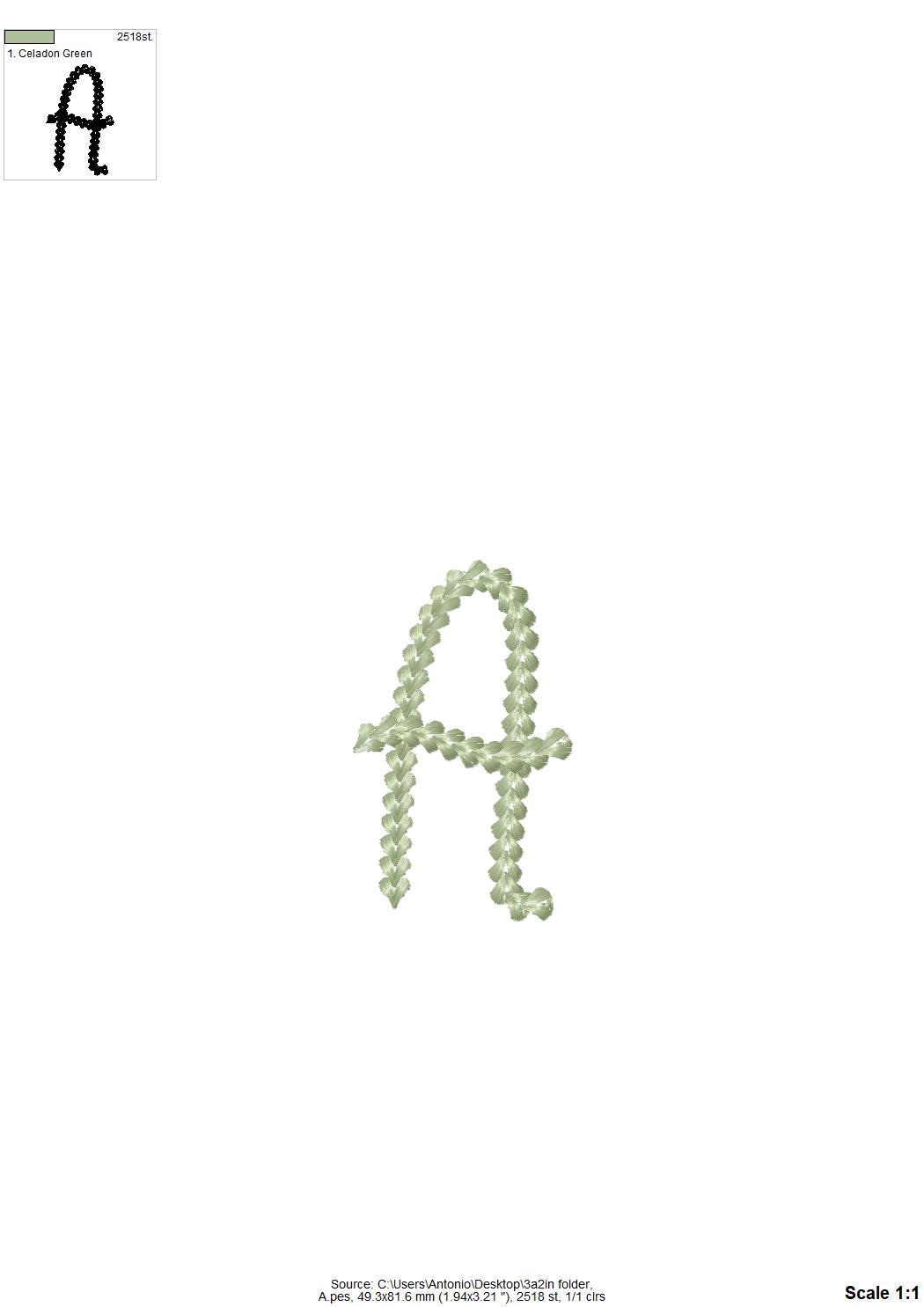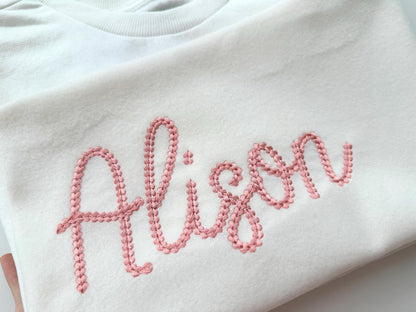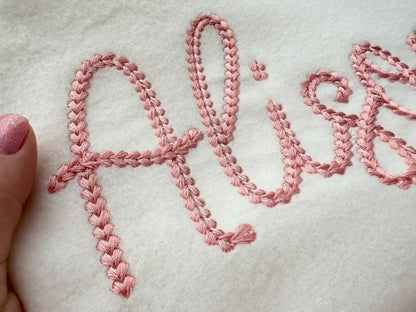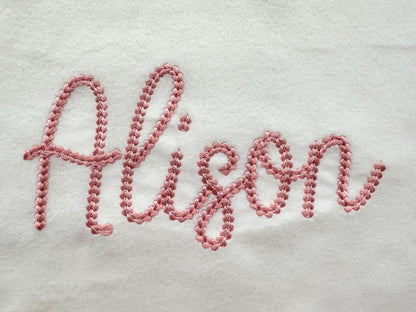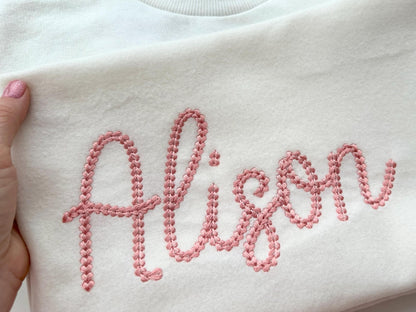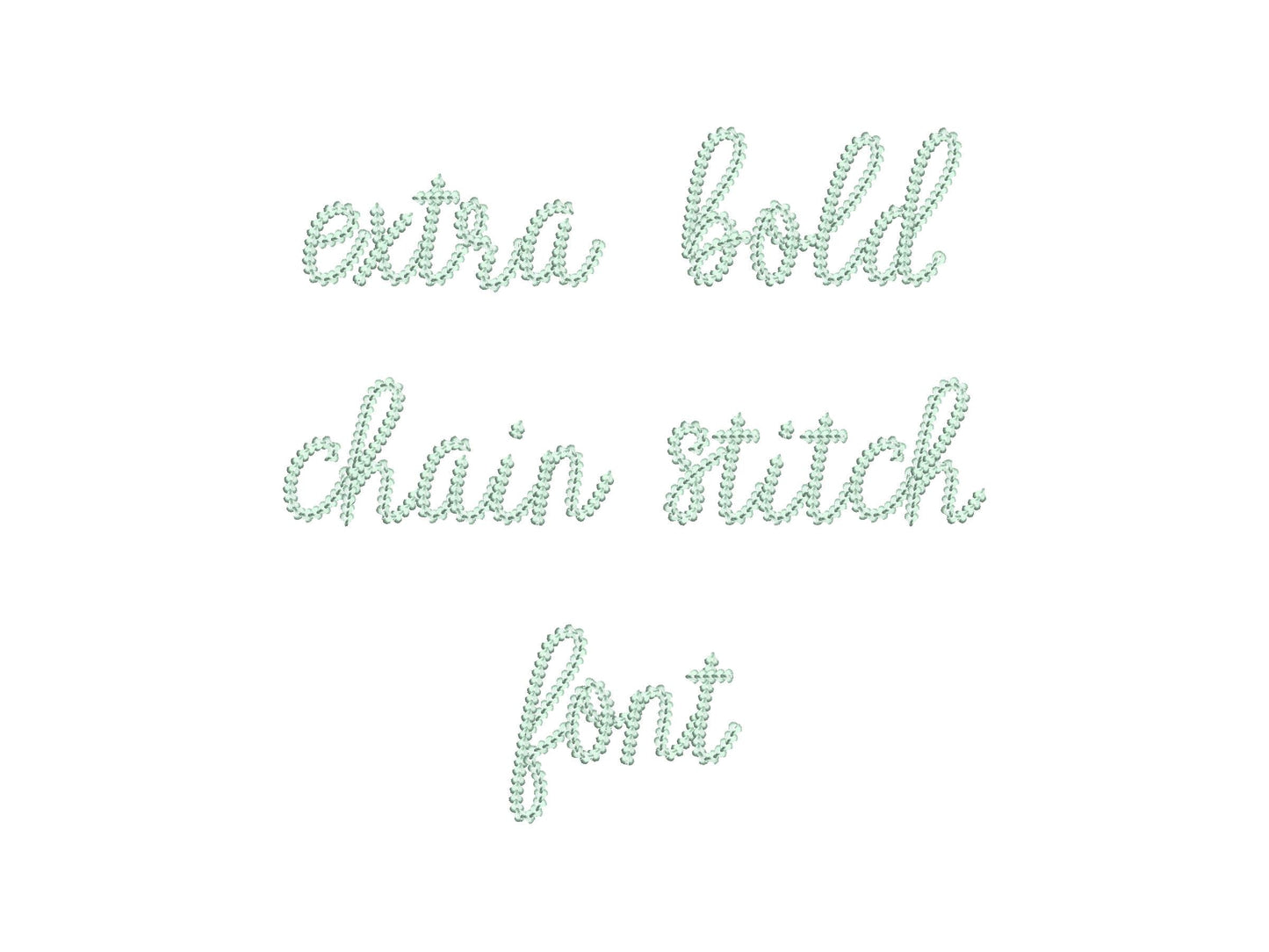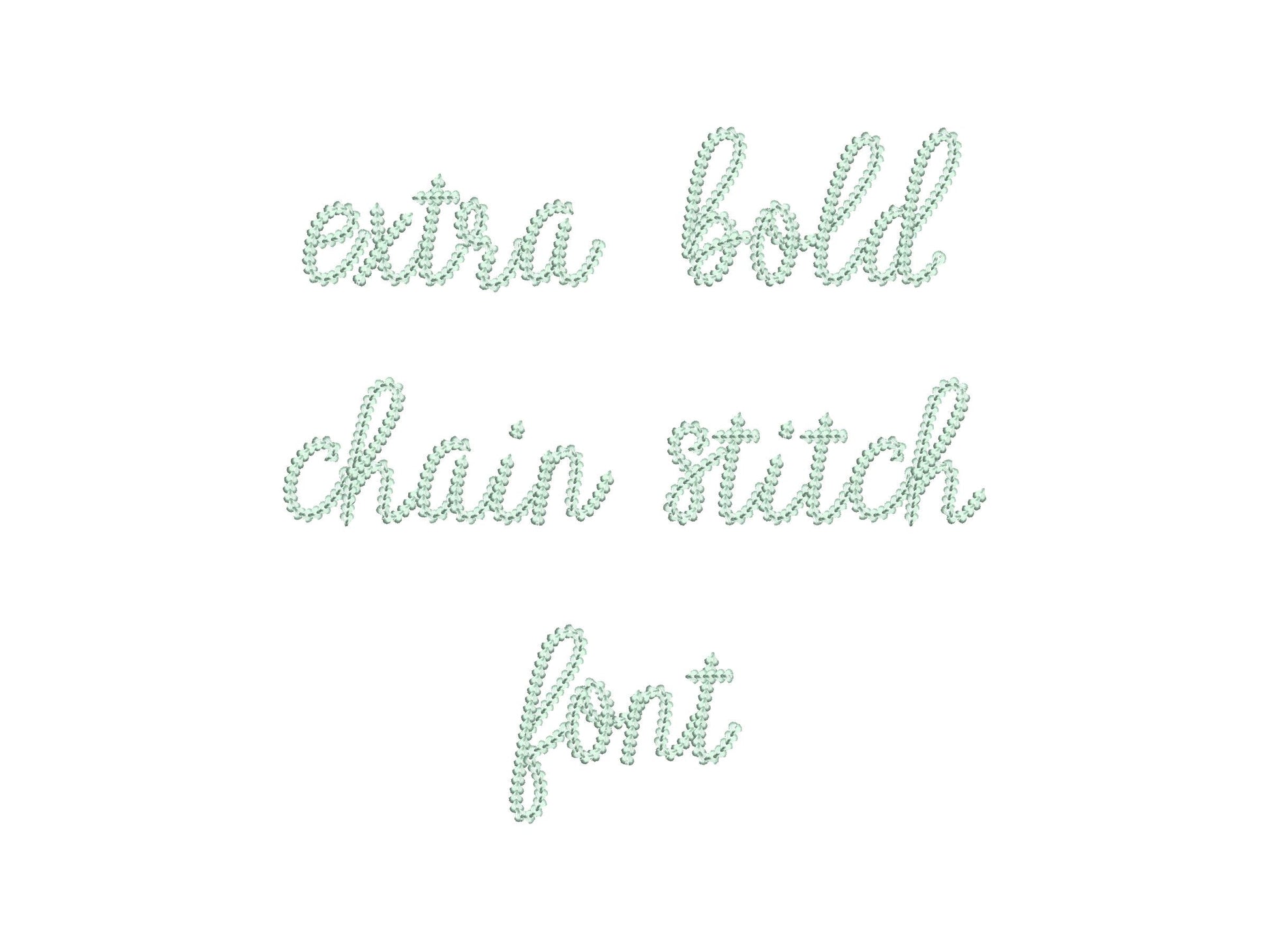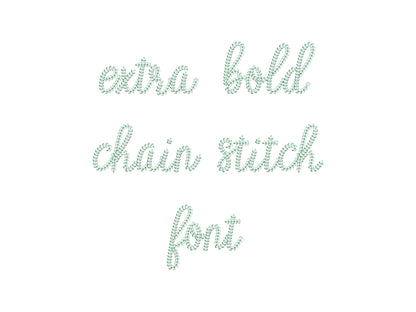
Stitches out very nicely. Loved.
One of my most favorite font purchases!
It's a great design for sweaters, etc. Stitched out great!
Great! Just what I needed
Stitched out beautifully. Customer loved their monogramming!!!!
great item look forward to do more with it
I love this font! It stitches out with no issues. ⭐️⭐️⭐️⭐️⭐️
Excellent font as always This font stitches seamlessly
Beautiful stitch, love the results!
Love this! Lots of stitches.
I loved this font! Beautiful
Stitched out perfectly! Love it
Absolutely love this design! works up well. Definitely would recommend.
Stitched perfectly. Highly recommend it.
Goodness, this stitched out so beautifully!!! I can’t wait until my customer sees it!
Looks like a terrific design. can't wait to stitch it
It stitches out perfectly. Thank you.
Stitched perfectly! Great work! Love it!
Super cute font! Love it
This is a beautiful font and it stitched so smoothly
Perfect stitch out my grand daughter loved it!
Stitched out great! Thank you!
No other than...BEAUTIFUL! I LOVE THIS FONT! It's GORGEOUS! I definitely will be using this on sweaters in the future.
It stitched out great on a sweater!